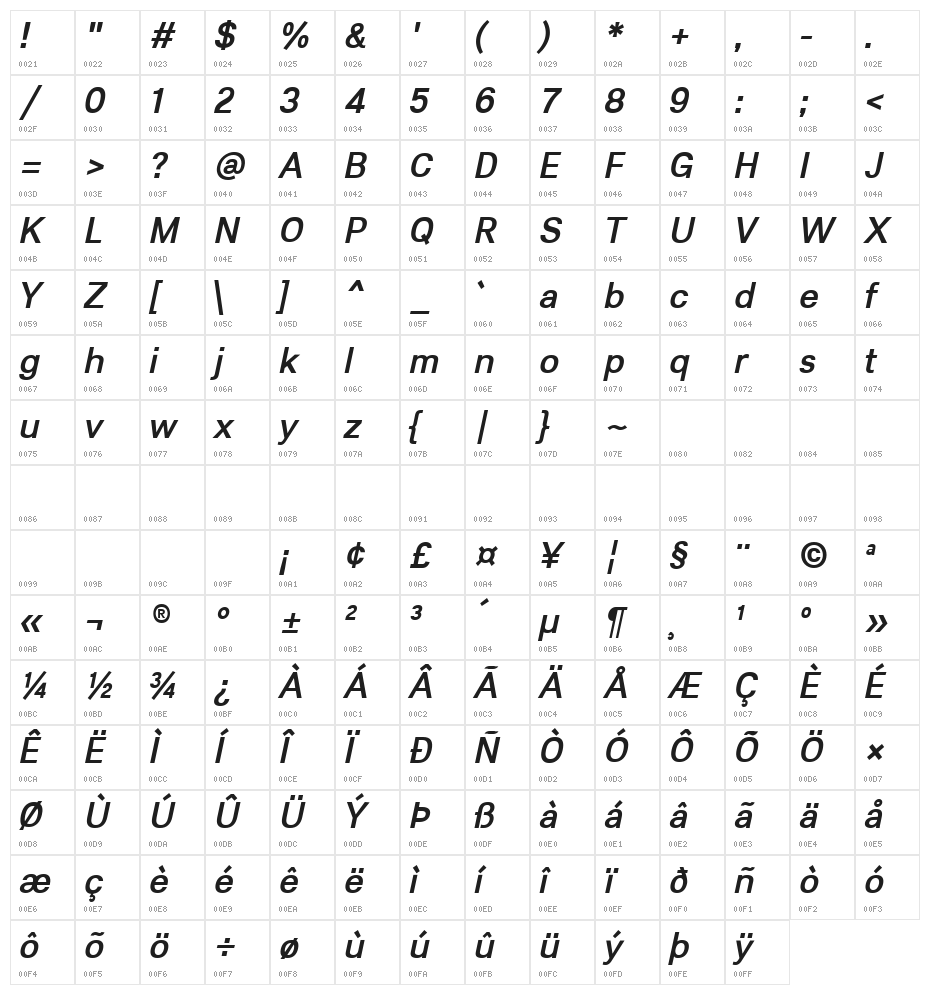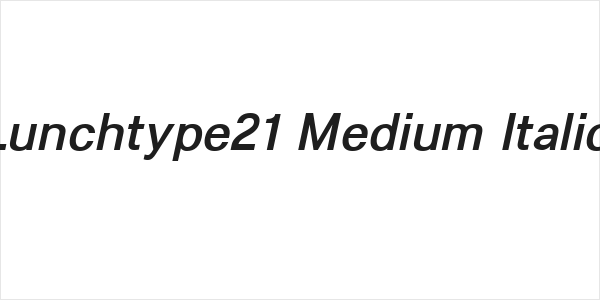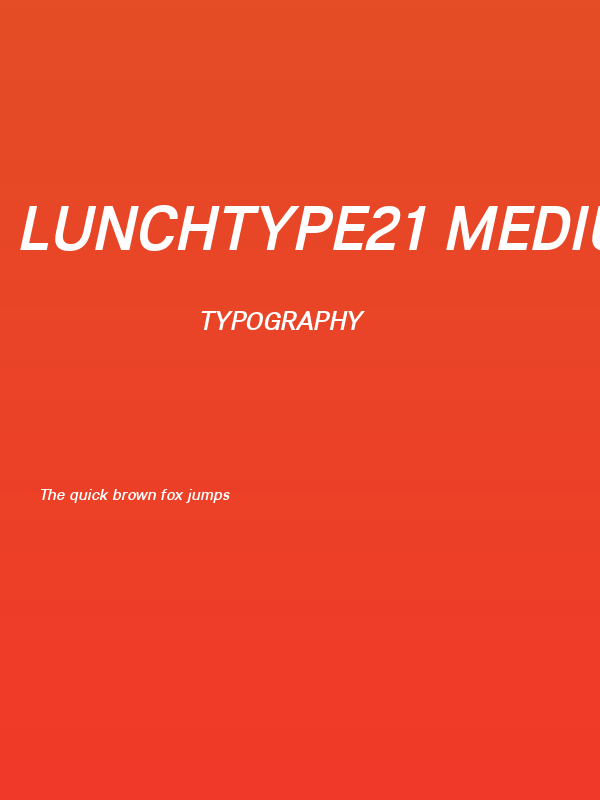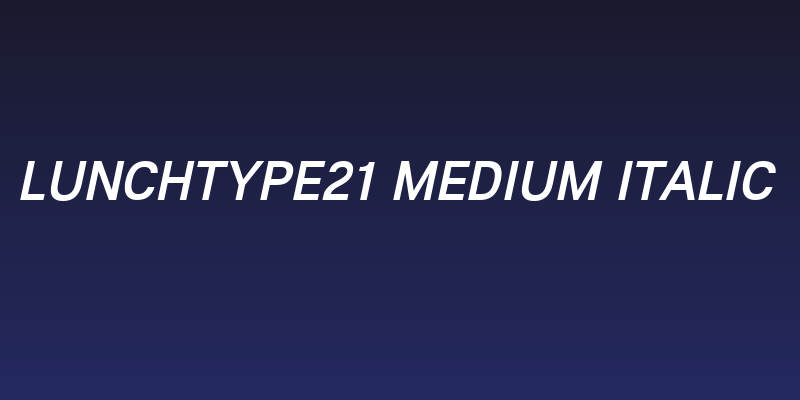
Lunchtype21 Medium Italic Font
Lunchtype21 Medium Italic Description
This font features a sleek, modern design with a slight italic slant, giving it a dynamic and forward-moving appearance. The characters are well-proportioned and maintain a consistent stroke width, contributing to a clean and professional look. The uppercase letters are bold and assertive, while the lowercase letters are more rounded and approachable. The numerals are clear and easy to read, making them suitable for various applications. Special characters are included, offering versatility for different types of content. Overall, this font balances elegance with readability, making it suitable for both digital and print media.
| Proposed Projects | Ideal for corporate branding, website headers, advertising materials, and editorial design. |